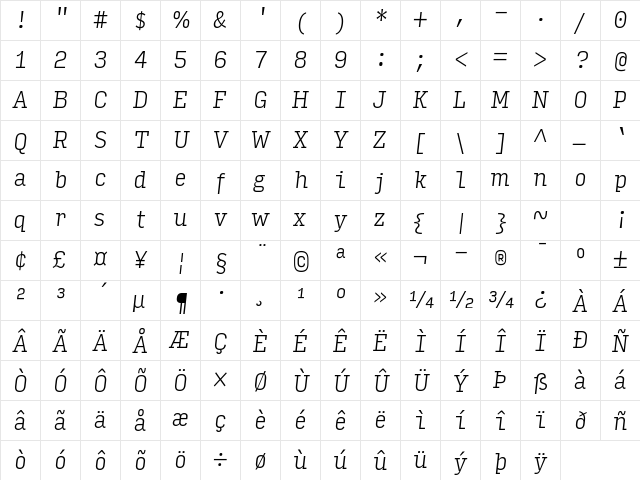
Complete Input Serif Condensed Extra Light Italic glyph index. Displaying only characters natively supported by Input Serif Condensed Extra Light Italic font.
Input Serif Condensed carries the refined structure of traditional serif typography, with bracketed terminals and considered proportions that communicate credibility and craft. The slanted form adds forward momentum and visual energy. Its slender proportions lend an understated elegance to any composition. Its narrow stance lets it pack a punch even in space-constrained designs.
Pro Tip: Use Input Serif Condensed with generous line-spacing for the most refined reading experience - its light weight benefits from room between lines.